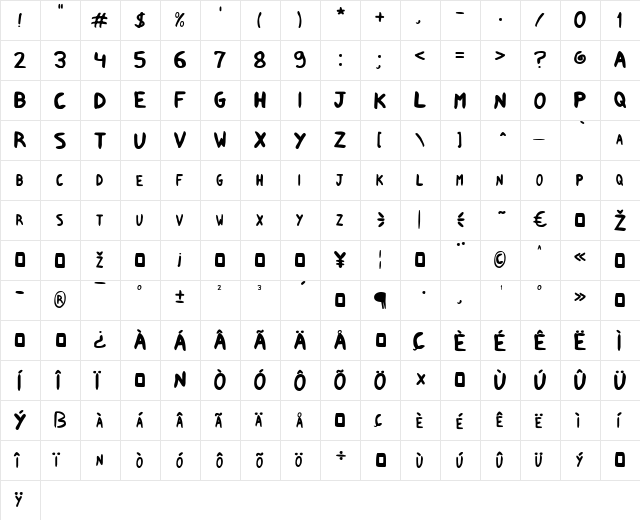
Shark Supah FX Font Preview
Design Context for Shark Supah FX Typeface
Shark Supah FX is a composed and adaptable typeface that performs quietly and consistently across a wide range of design contexts.
Pro Tip: Use Shark Supah FX in both headline and body roles to test its range before committing to a single application.